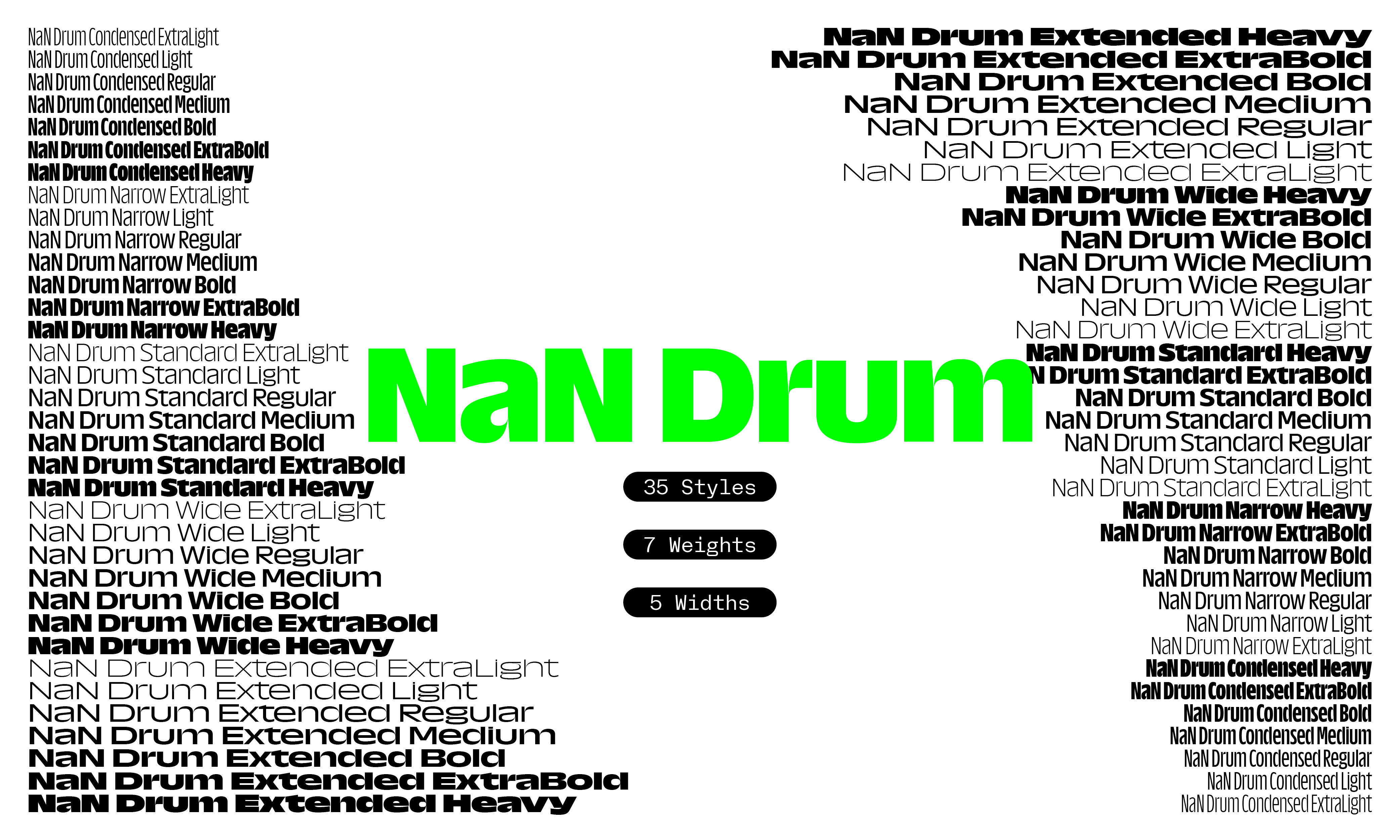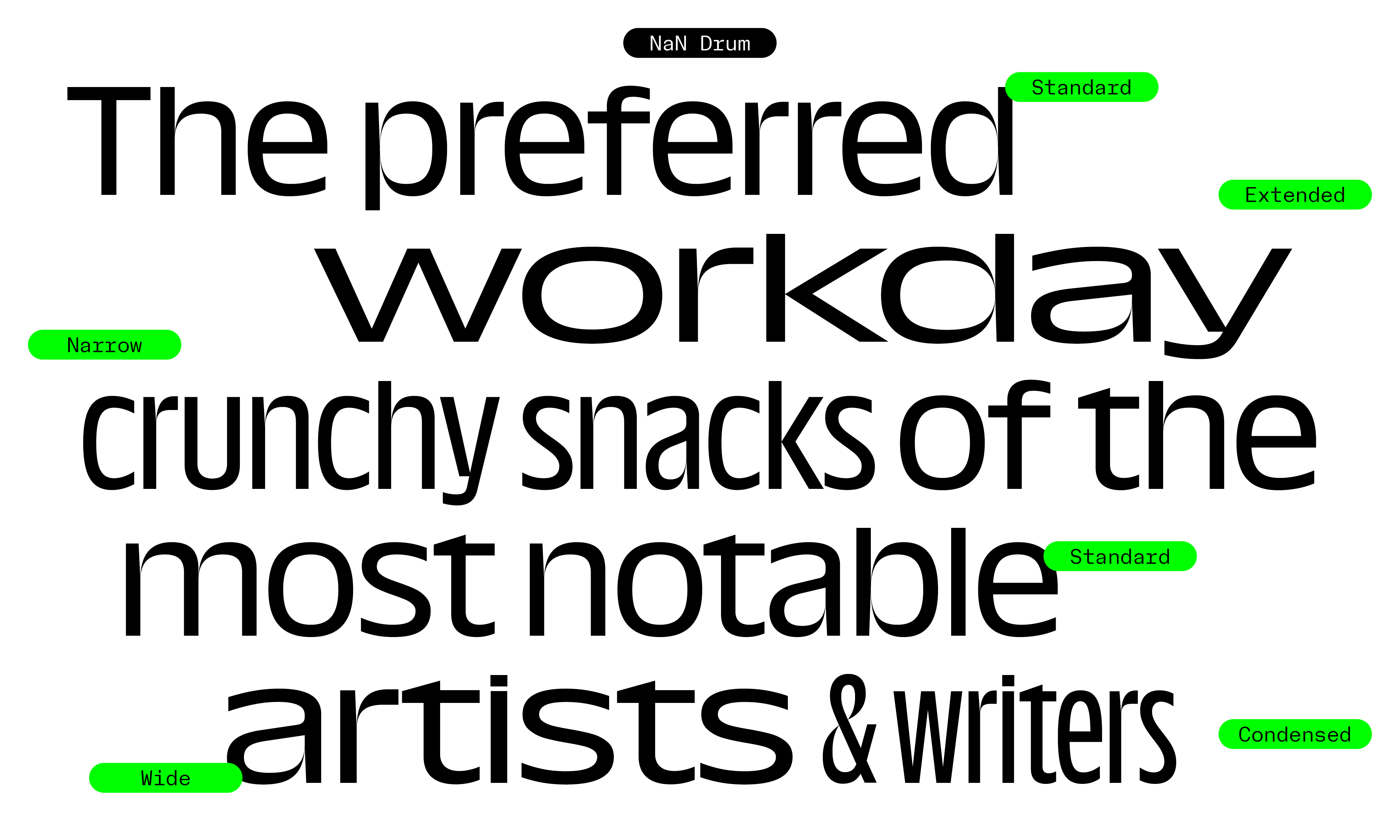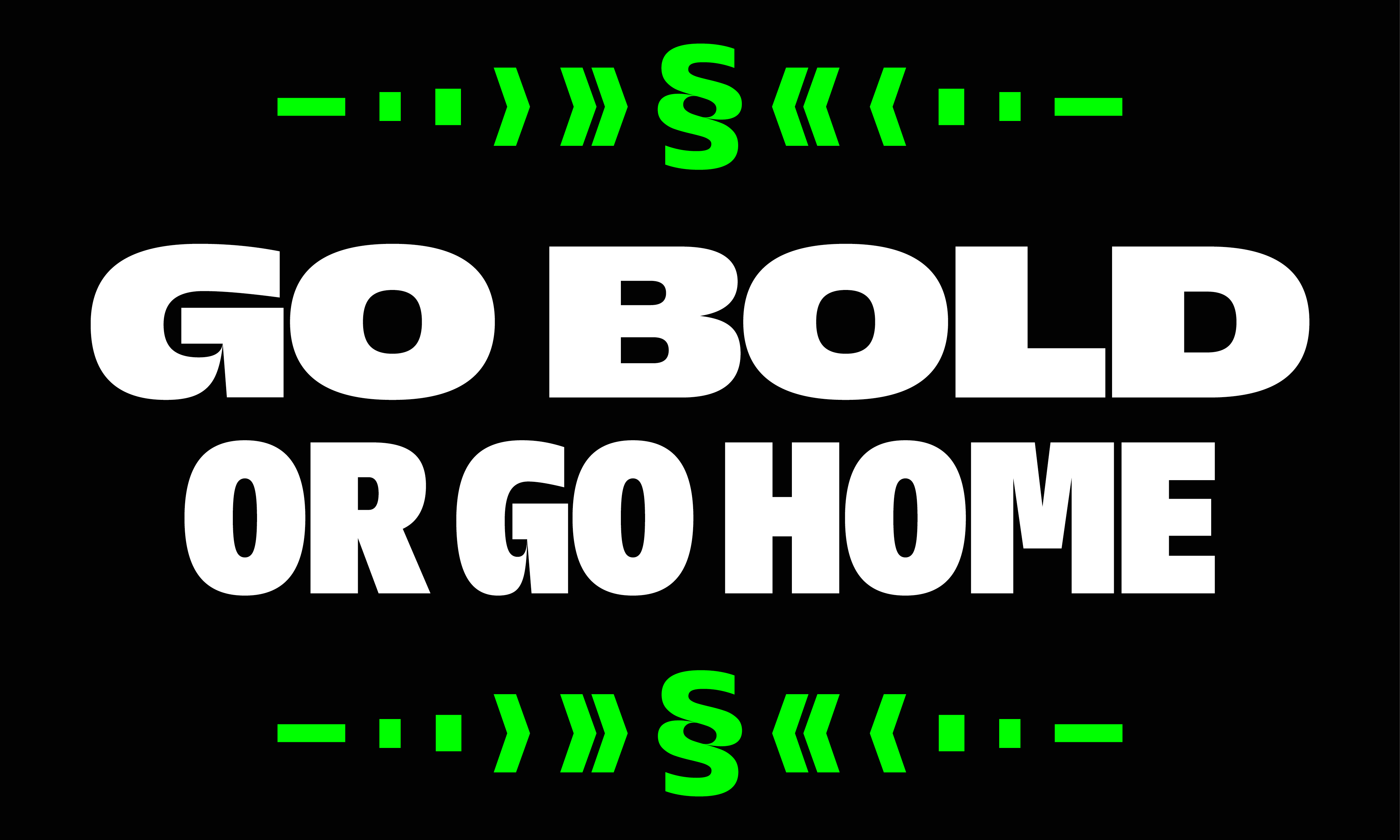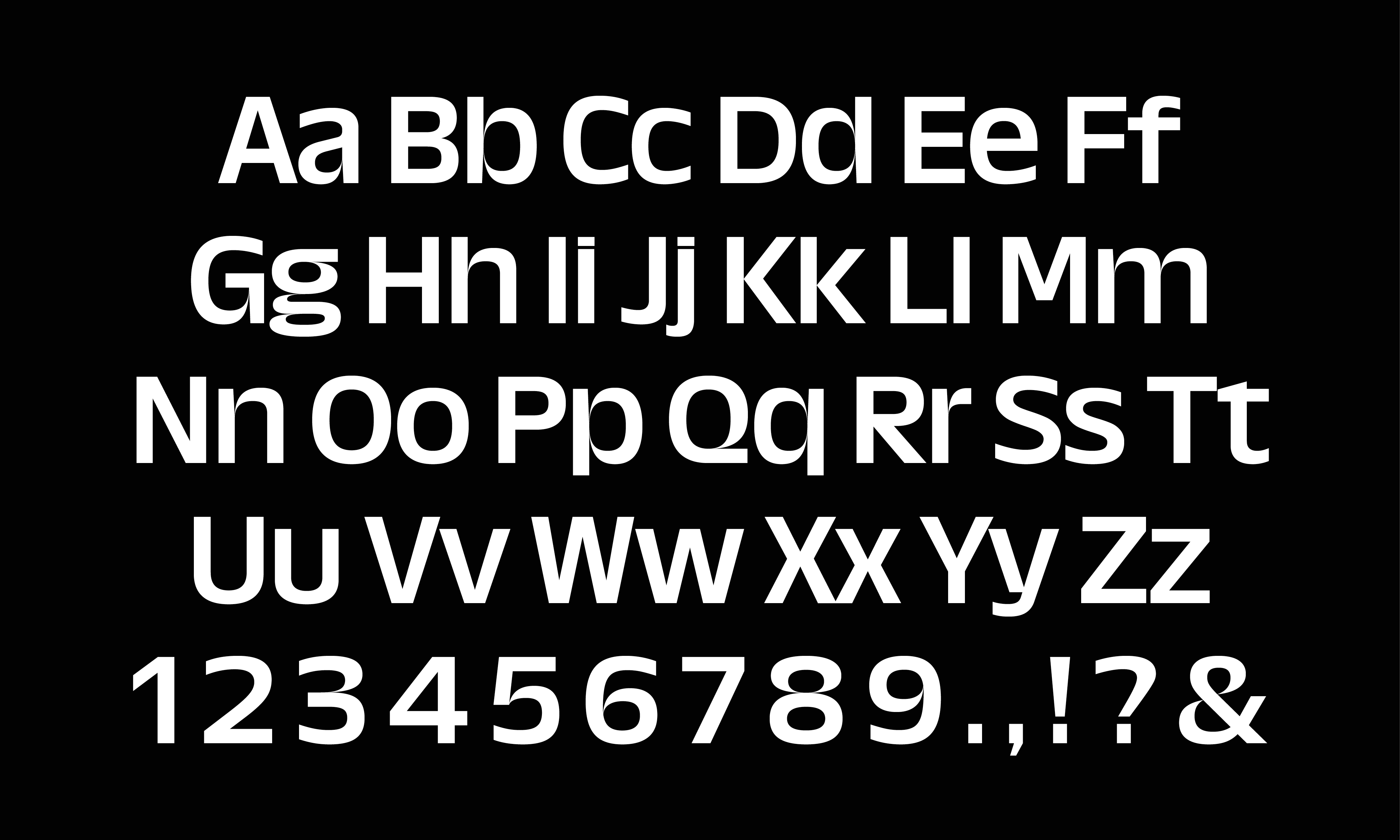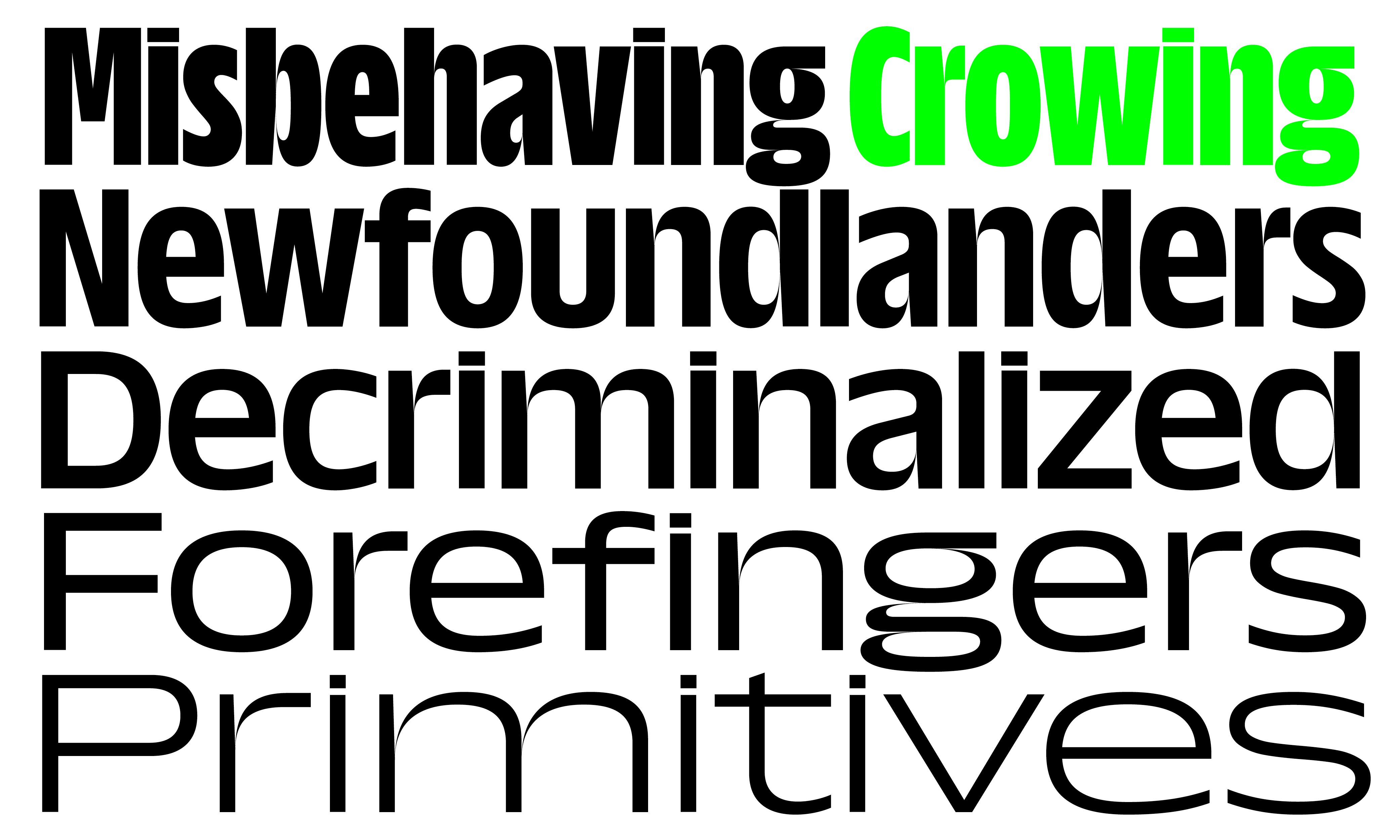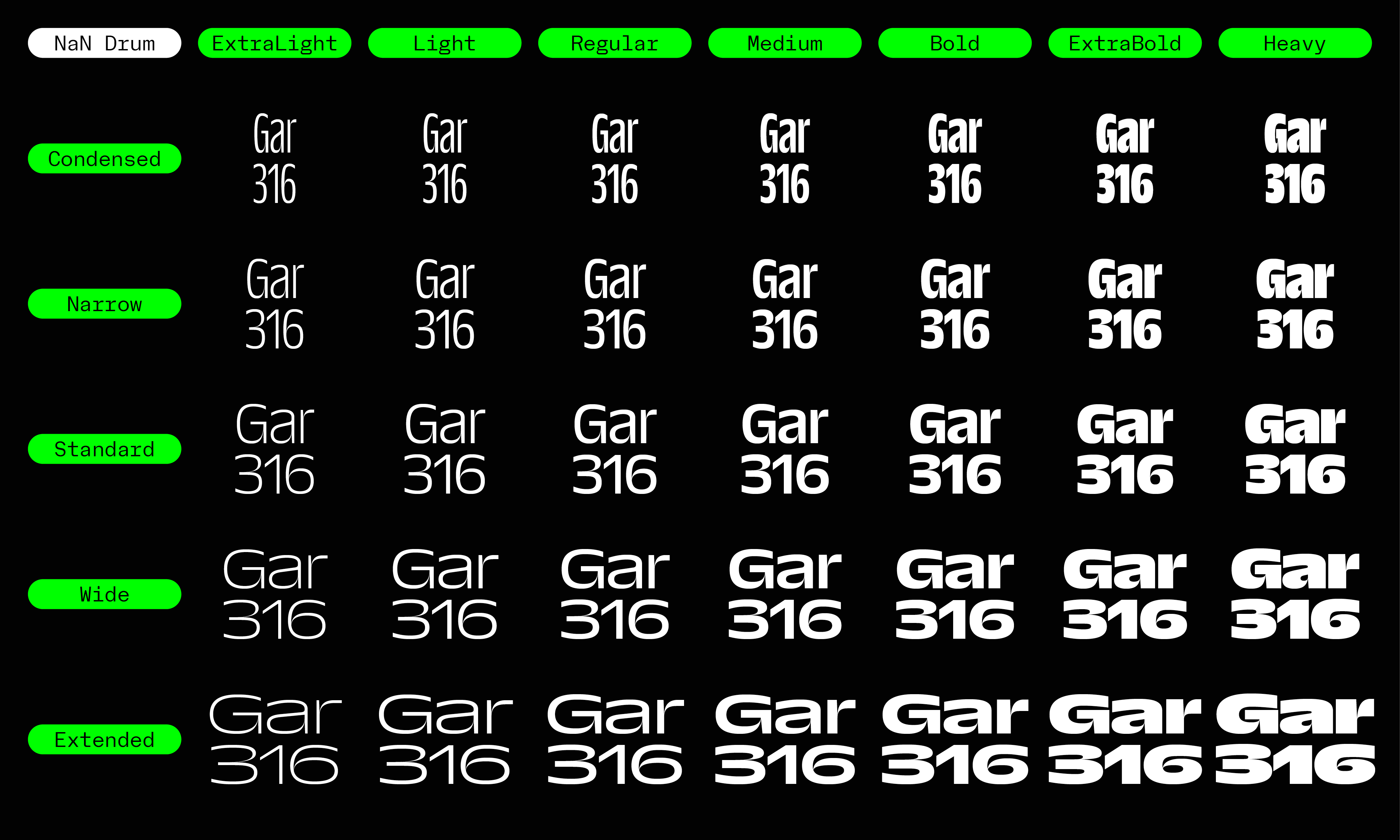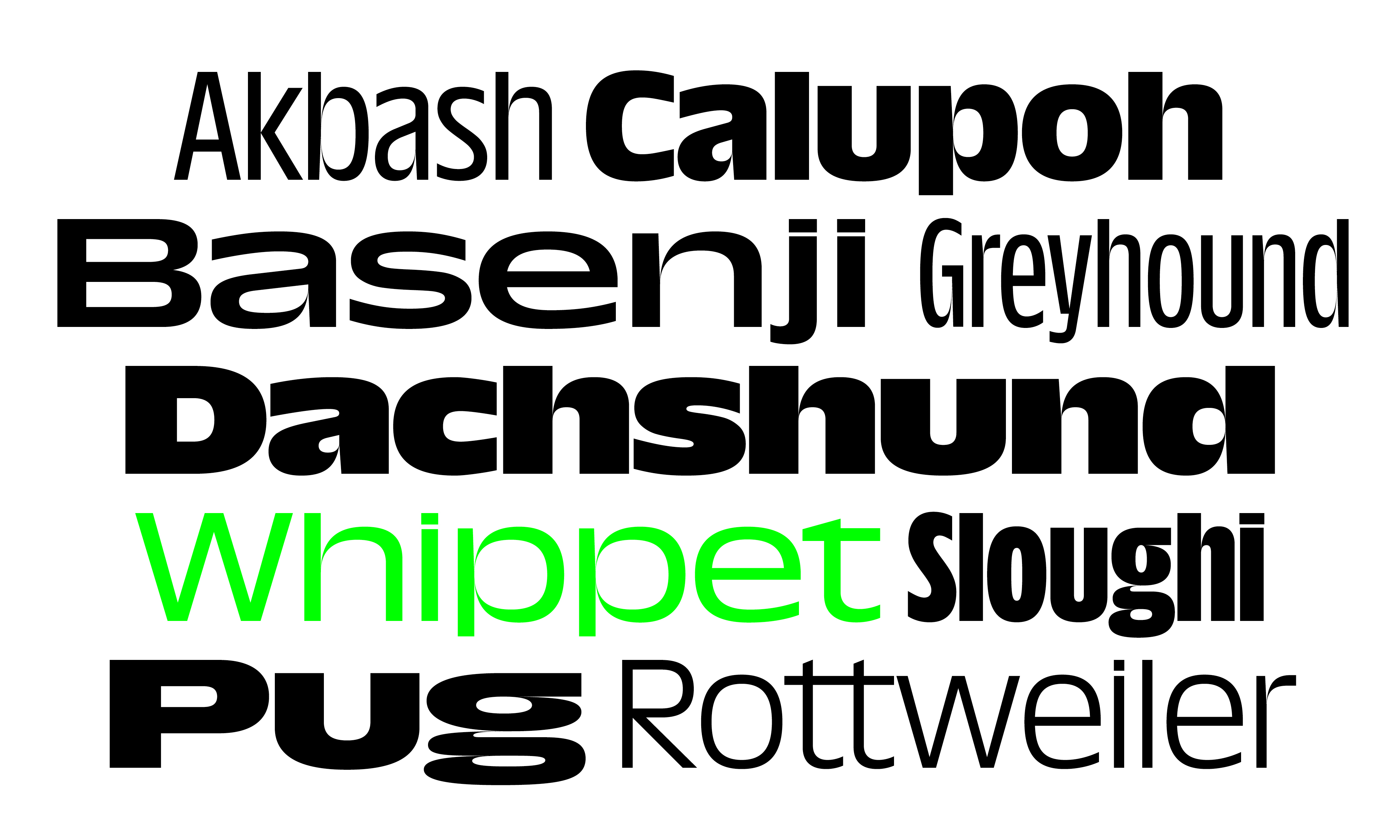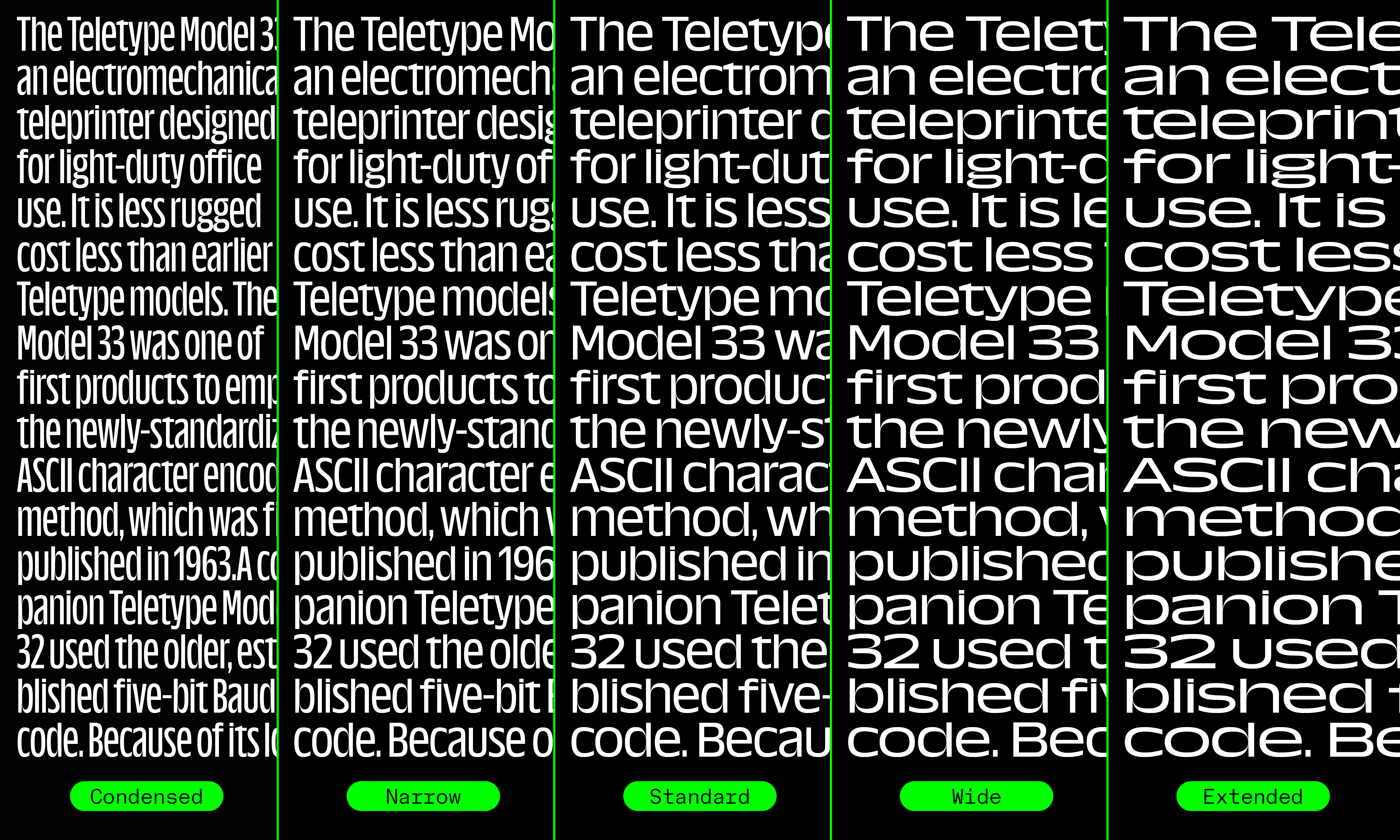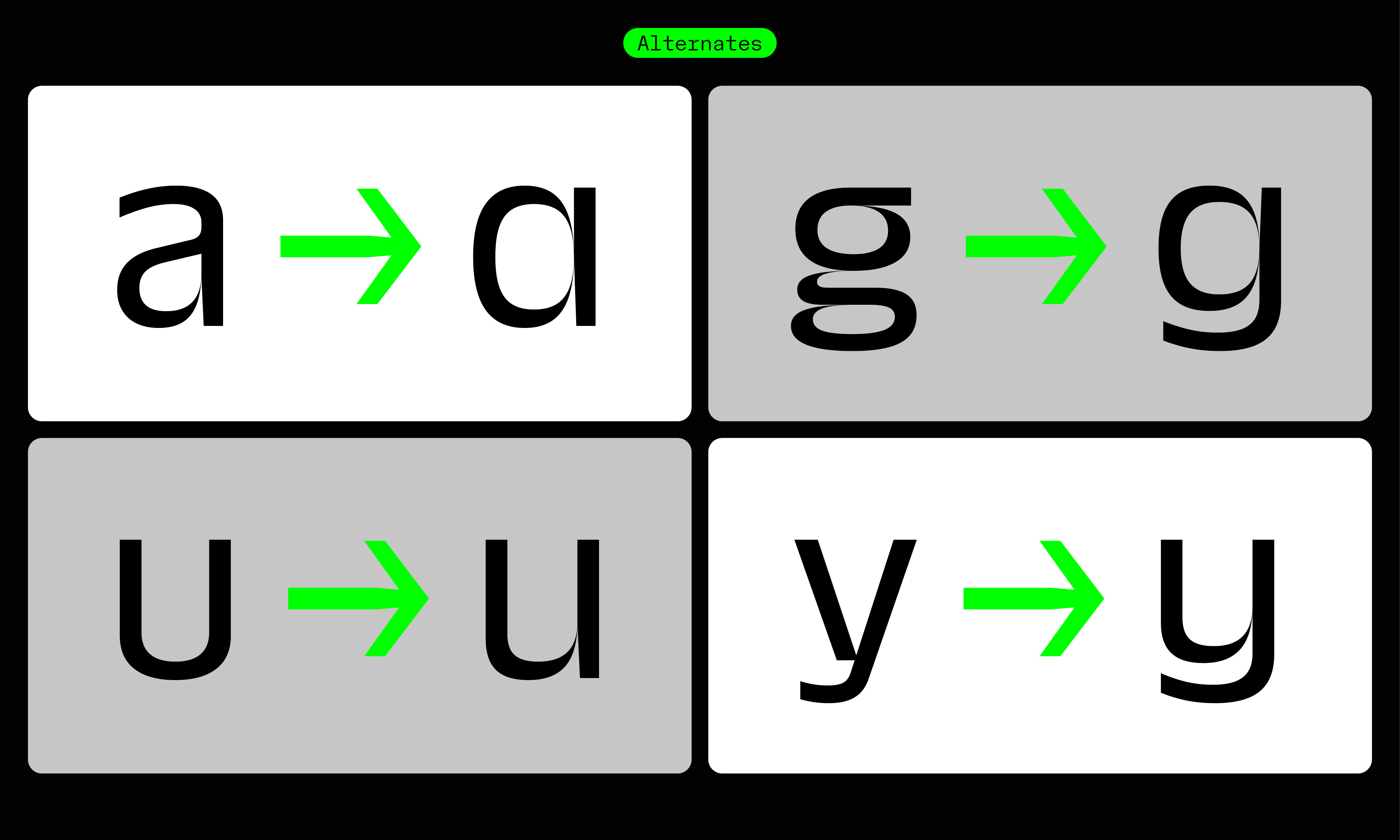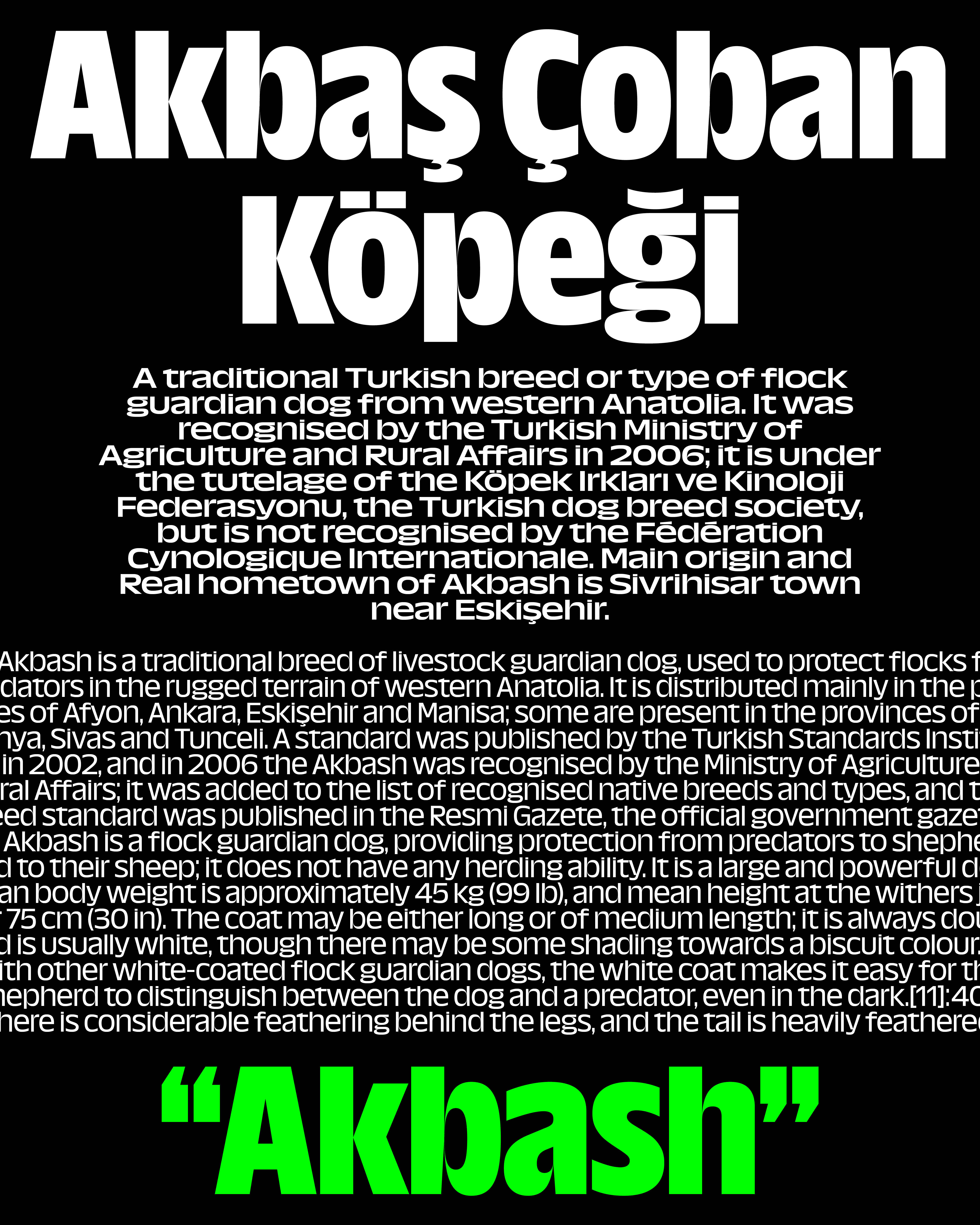
NaN Drum family
by NaN
NaN Drum
NaN Drum, a big-x-height humanist sans in many widths and weights.
NaN Drum Styles, So Many!
Condensed
Narrow
Standard
Wide
Extended
NaN Drum OpenType Features
- Fractions (on) (off) 13/57
- Ordinals (on) (off) 1o 2a
- Proportional Figures (on) (off) 1964
- Scientific Inferiors (on) (off) 0123456789
- Subscript (on) (off) abc123
- Superscript (on) (off) abc123
- Tabular Figures (on) (off) 0123456789